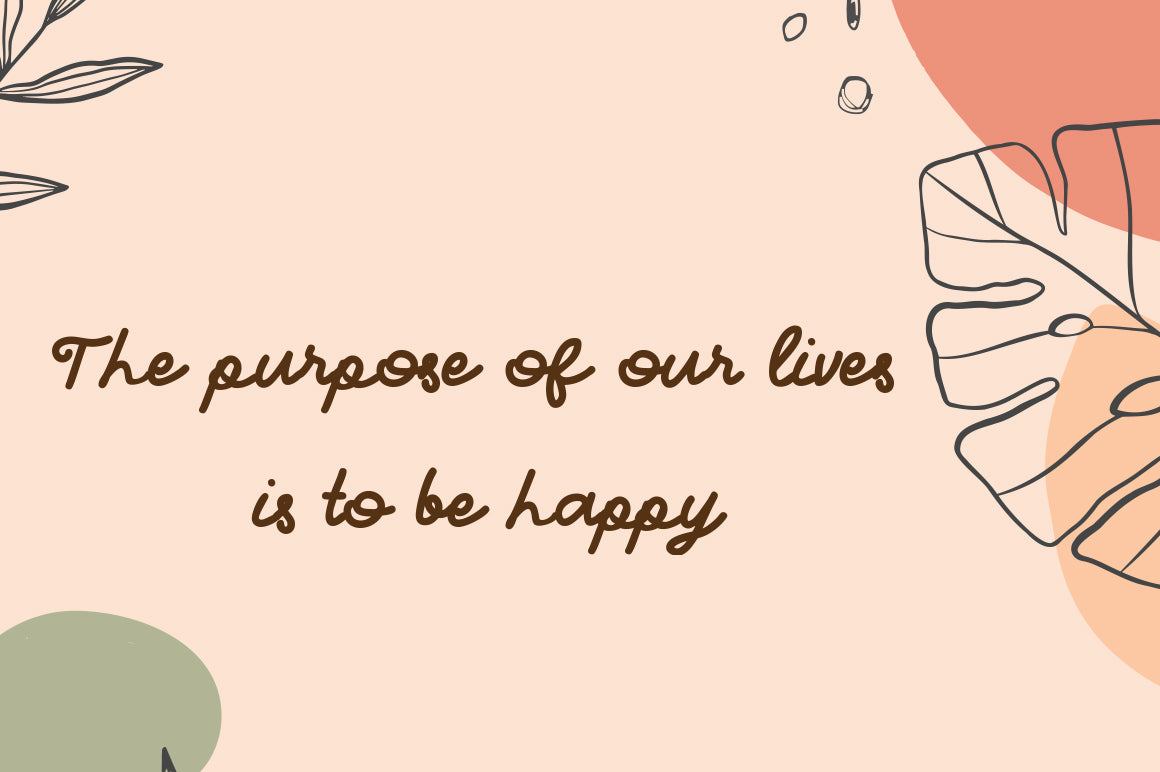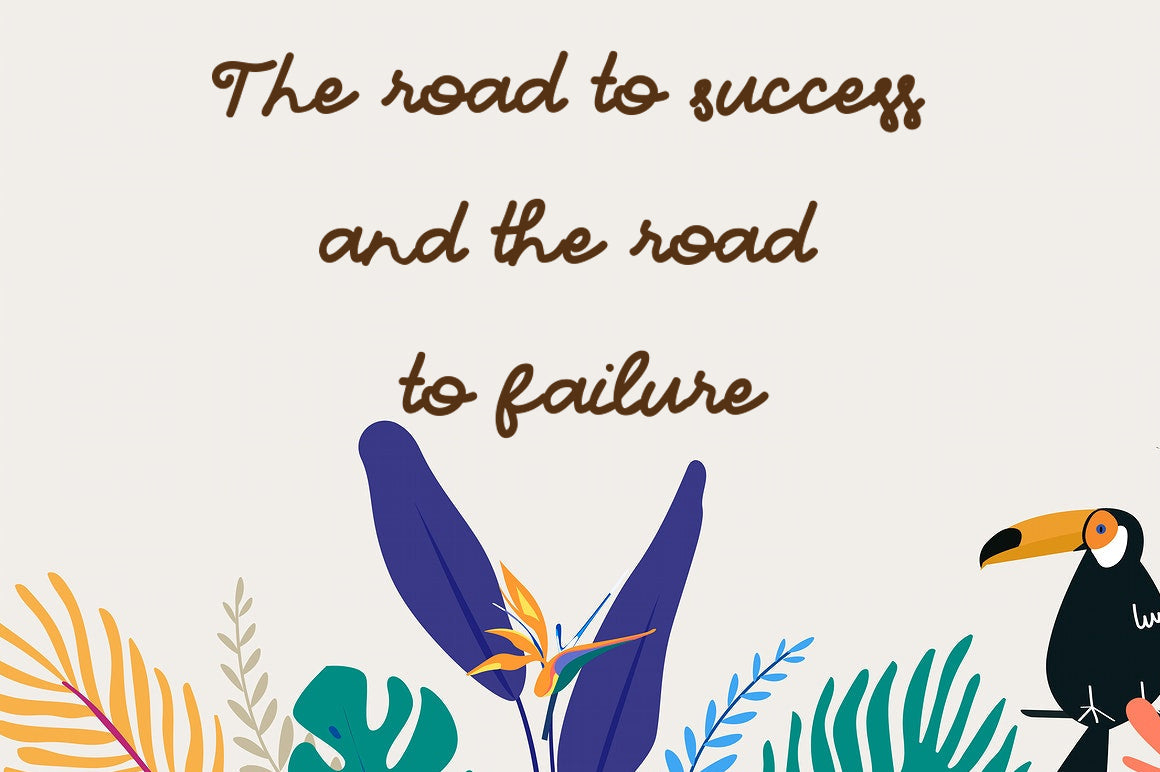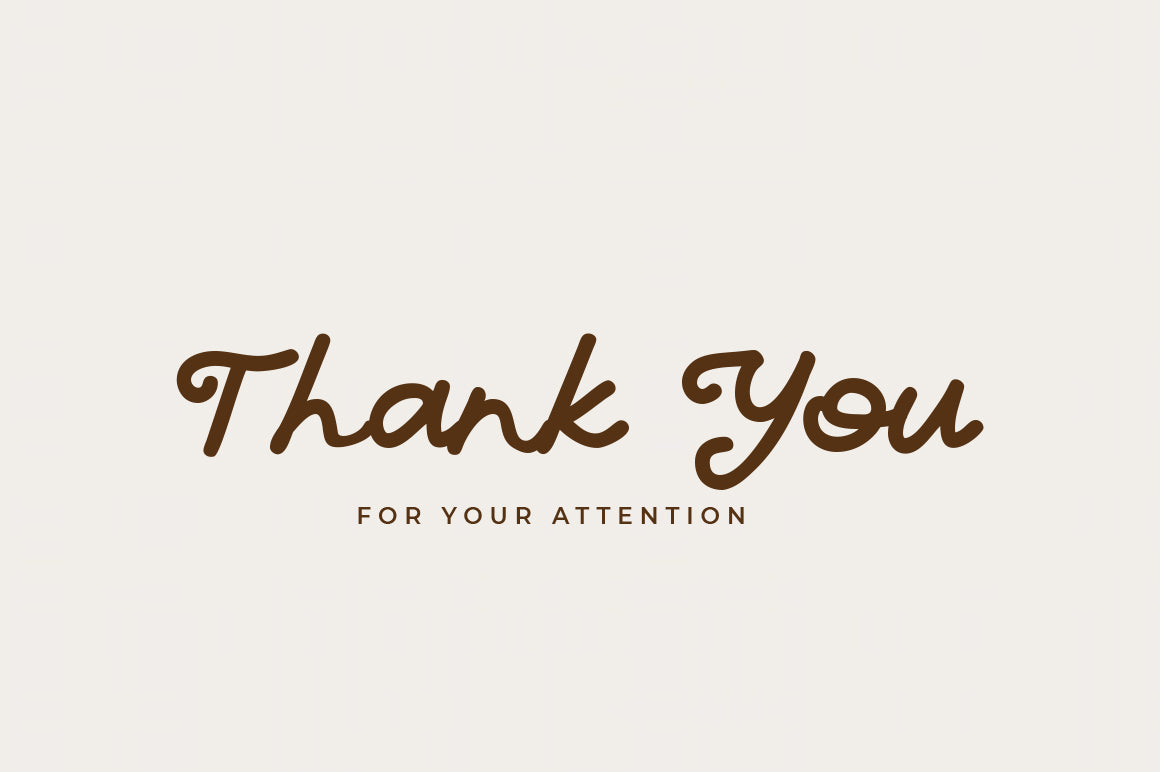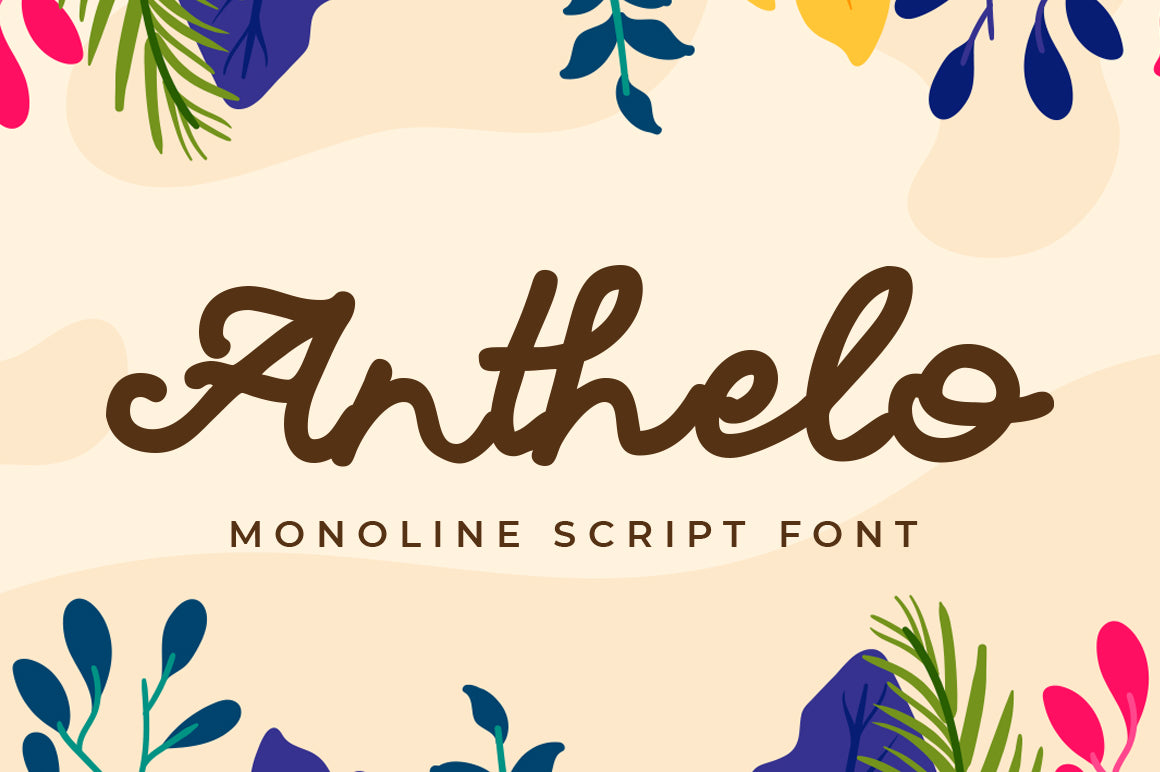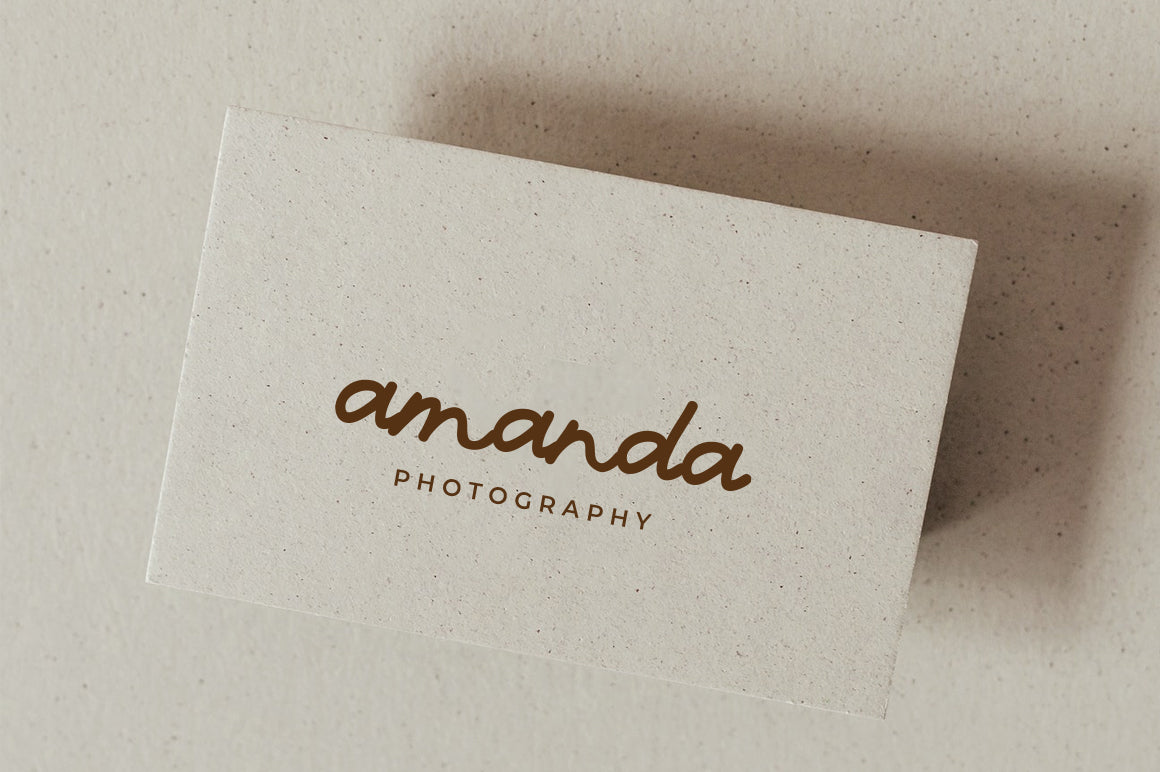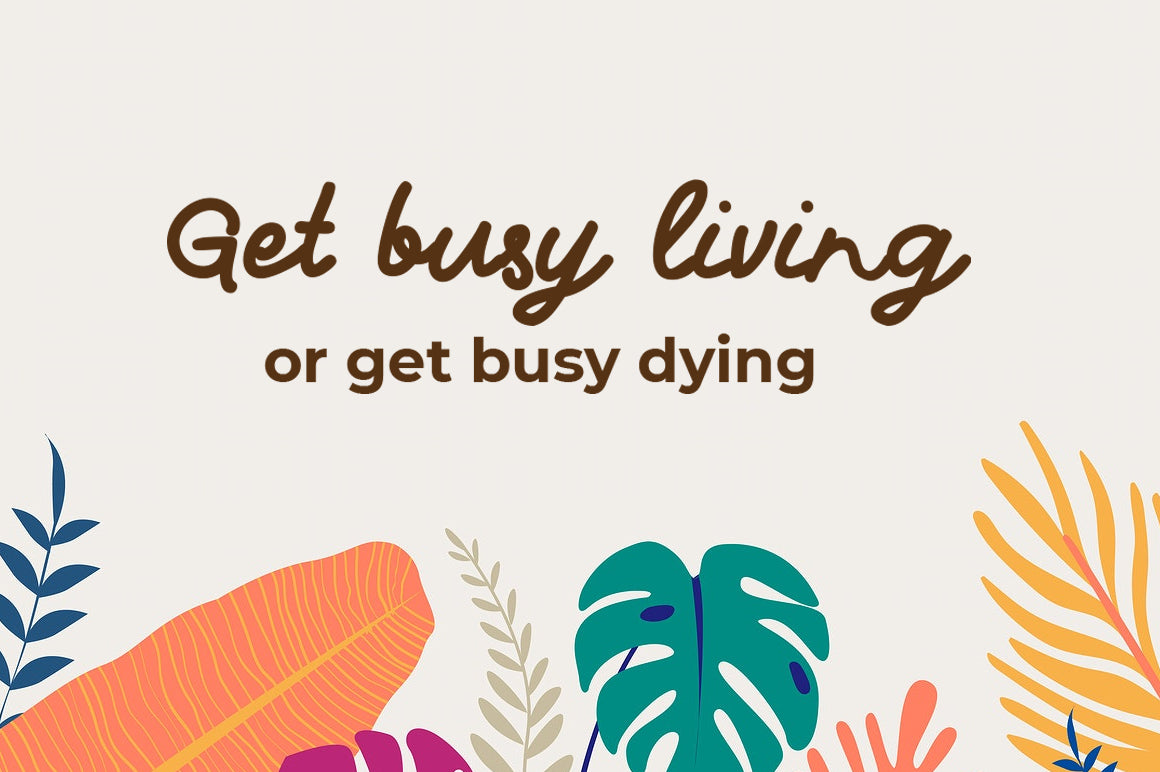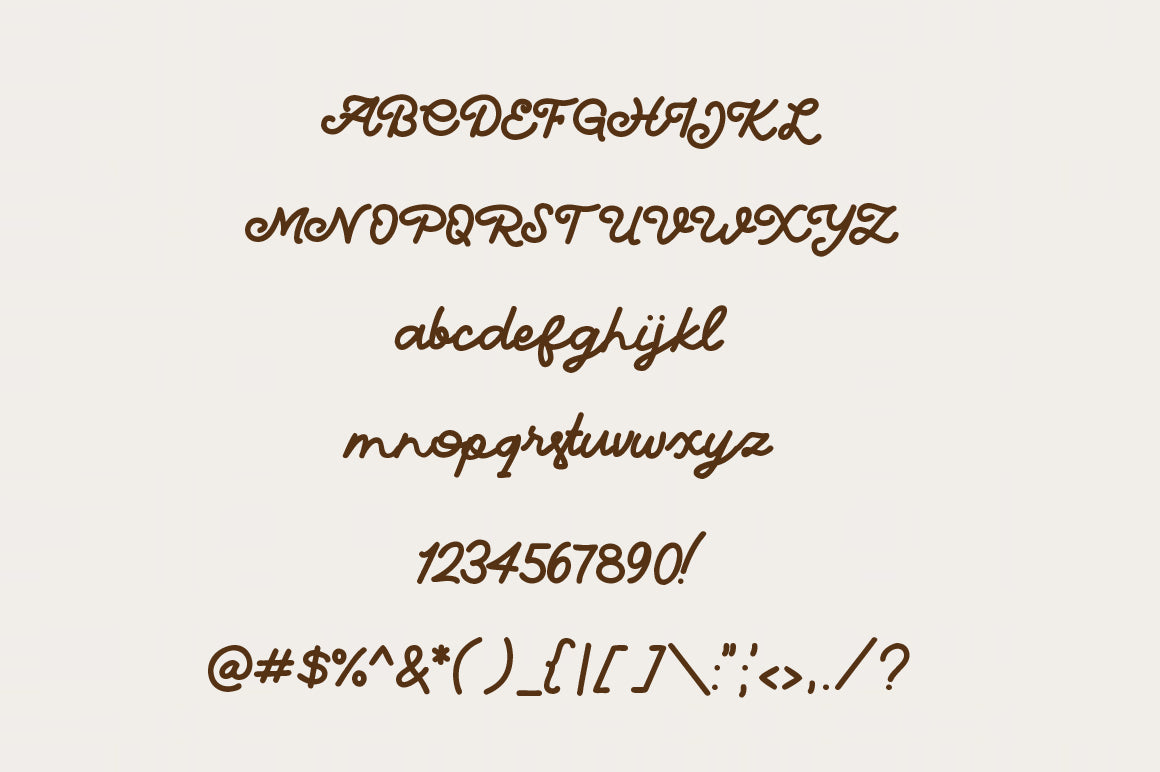
Anthelo – Cursive Font
About Anthelo – Cursive Font
Anthelo is an elegant and delicate handwritten font. It looks stunning on wedding invitations, thank you cards, quotes, greeting cards, logos, business cards and every other design which needs a handwritten touch. You WIll Get : Zip file containing: either a OTF and TTF files Font Features : Web font file (.WOFF) Uppercase + Lowercase Letters Numbers + Punctuation Ligature Feature OpenType features Multilingual support Compatible with Adobe Illustrator, Adobe Photoshop, Adobe Indesign, Word, Corel draw, inkscape Silhouette Studio, Cricut Design Space, Scan N Cut, and other cutting and design programs Any questions? feel free to send us a message. Have a great day !